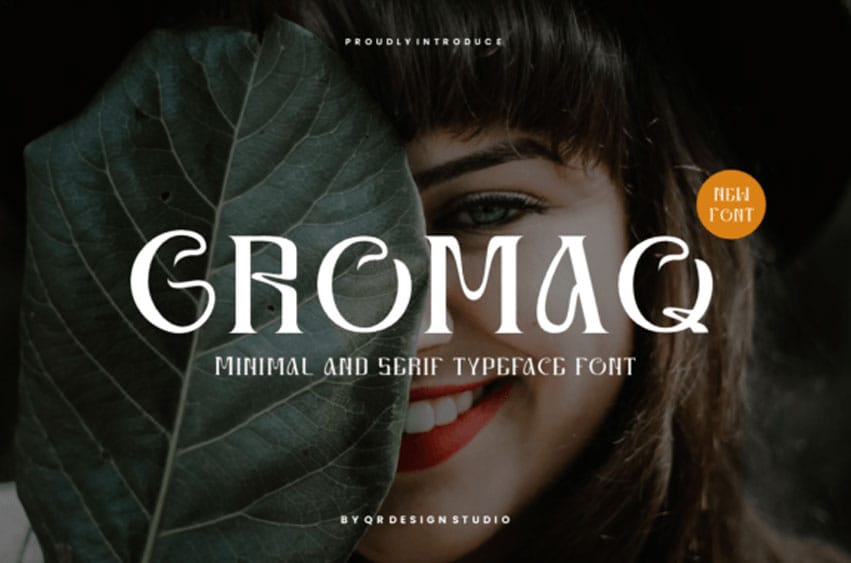
Gromaq Font is a cool and bold display font. Add it to your creative projects and enjoy the results!
This font is well-suited for a variety of contexts, such as print design, promotional materials, or magazine layouts.